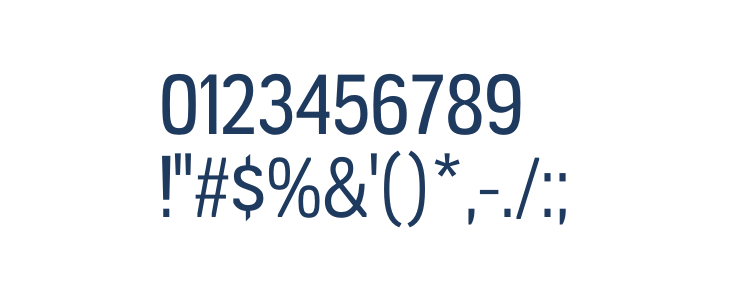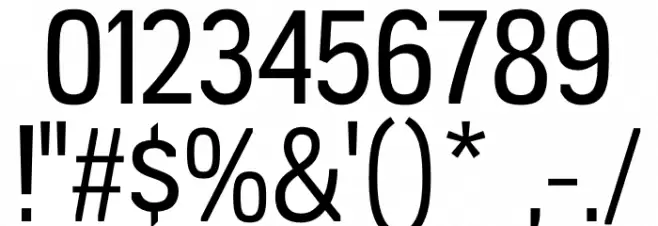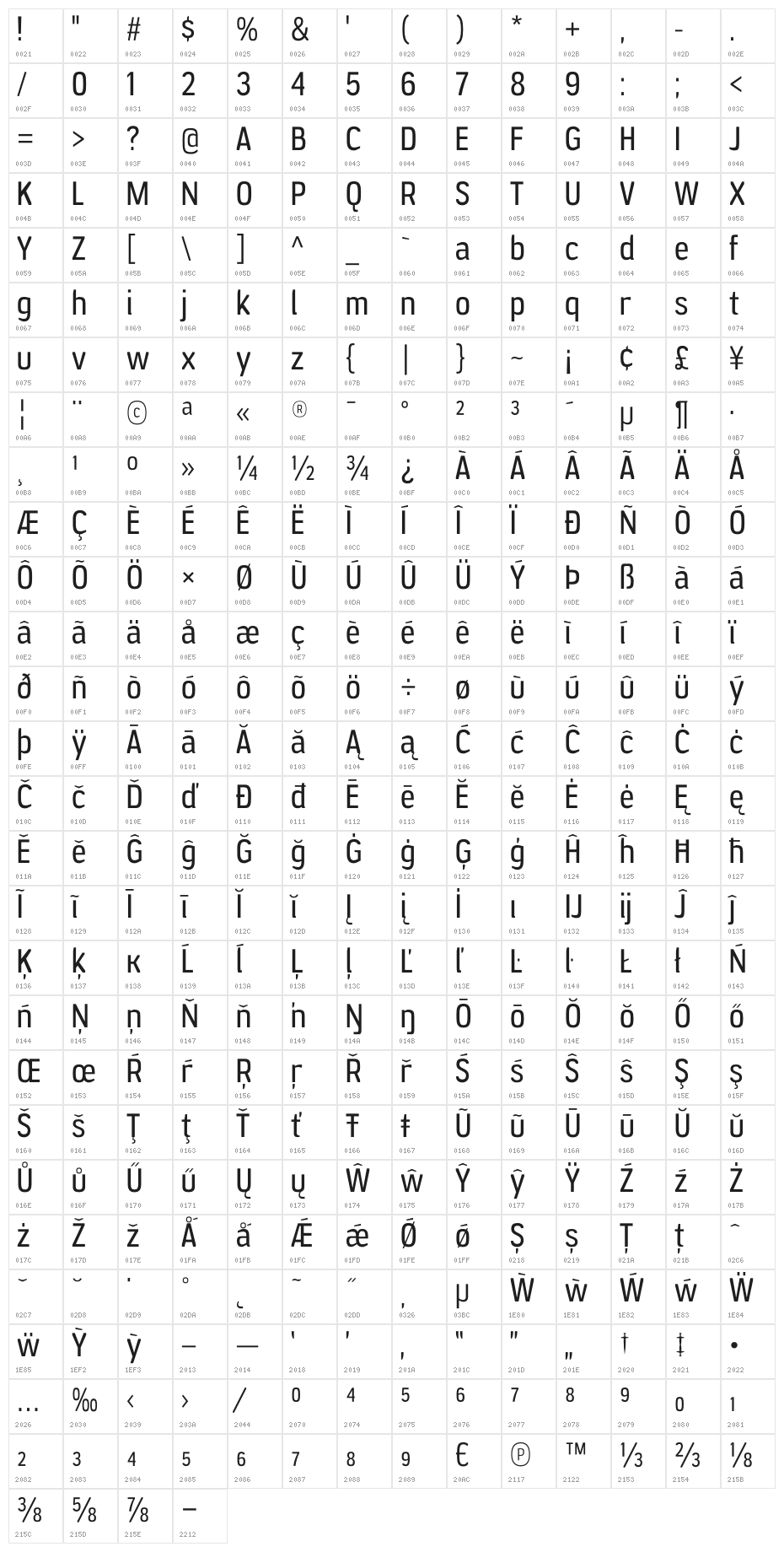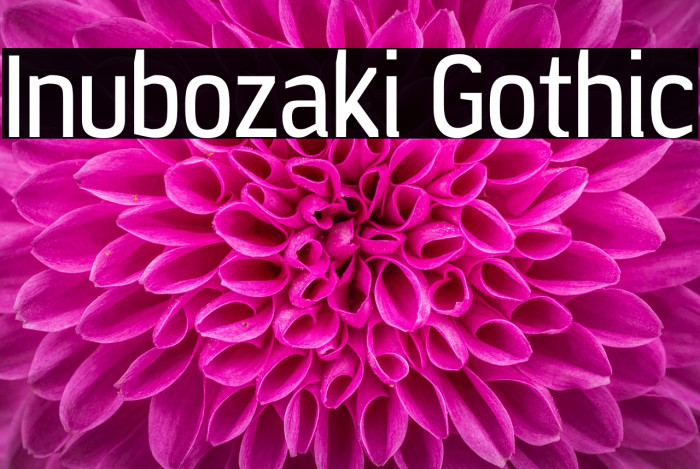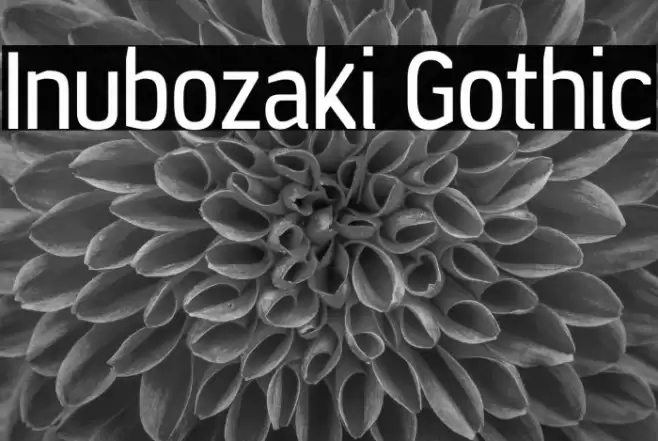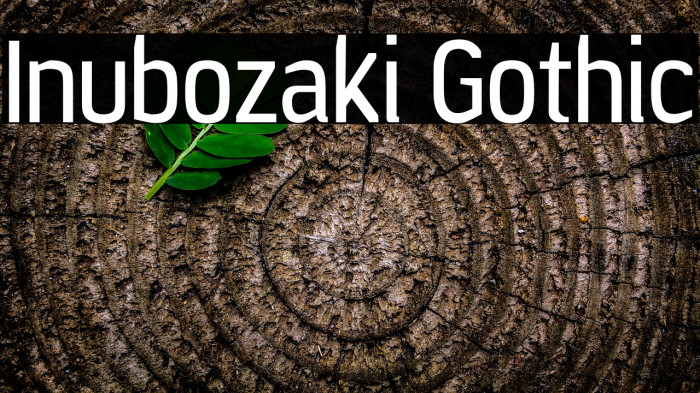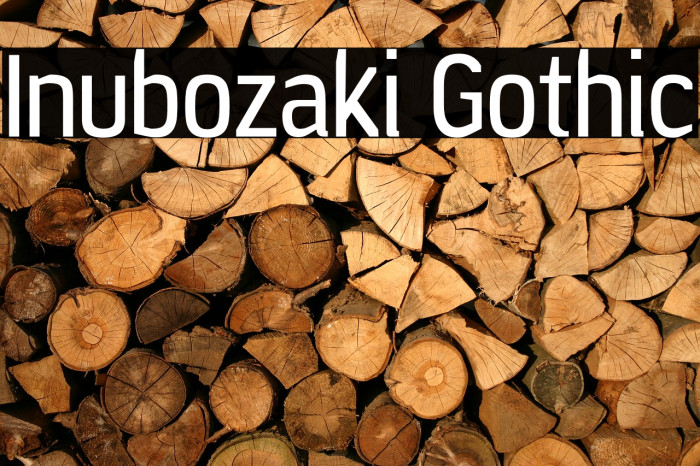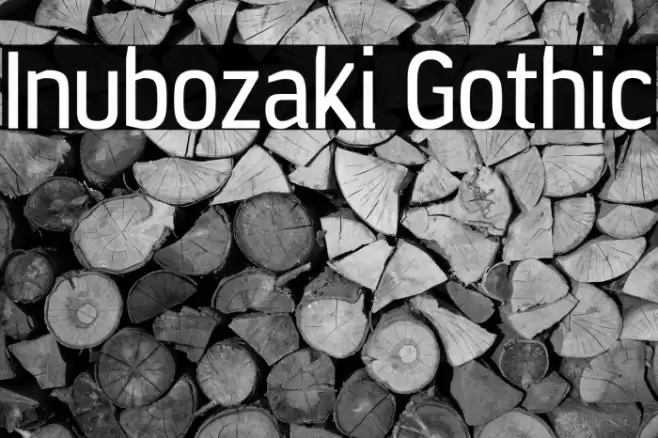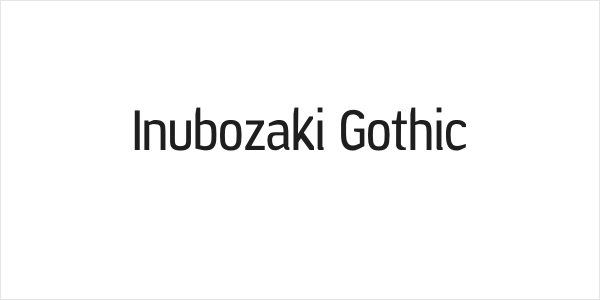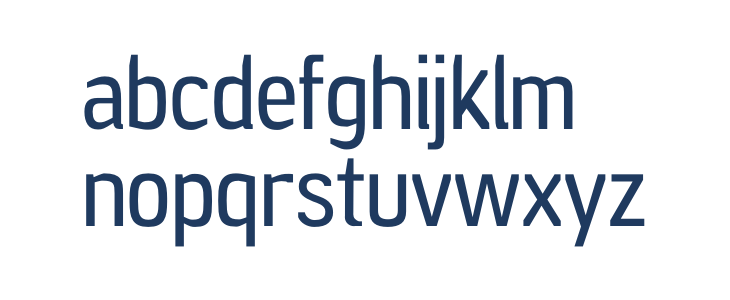
Inubozaki Gothic Font
Inubozaki Gothic Description
This typeface features a clean and modern design with a sans-serif style, characterized by its uniform stroke width and absence of serifs. The letters are well-proportioned and maintain a consistent height, providing a balanced and harmonious appearance. The uppercase and lowercase letters are distinct, with a slight variation in stroke thickness that adds subtle interest without compromising readability. The numerals are clear and straightforward, matching the overall aesthetic of the typeface. Special characters are included, maintaining the same design principles, ensuring versatility across various applications.